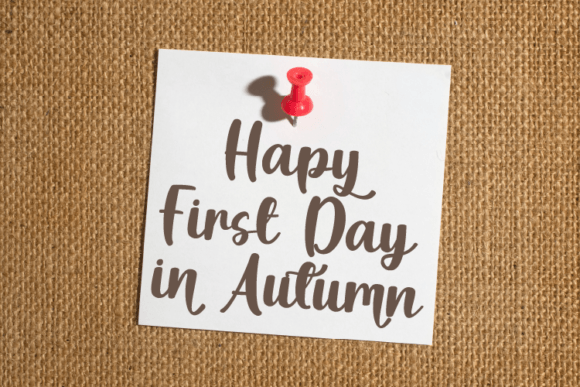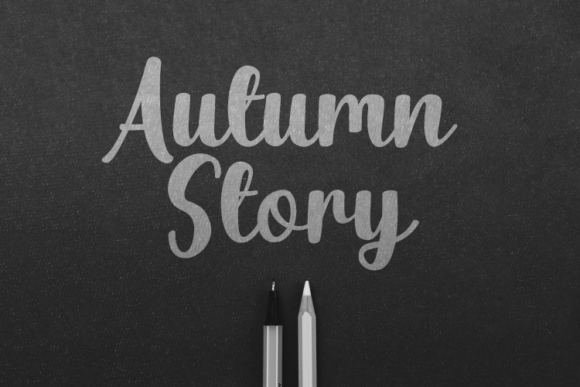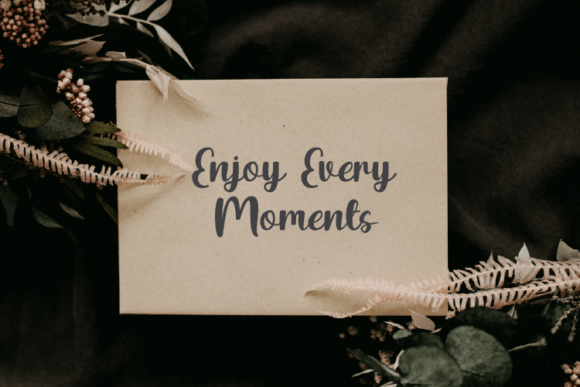
Introduction to Fresh Night Font
Fresh Night is a simple handwritten font that you can use for all chalkboard quotes or teaching materials.
Its authentic look will add a personal and realistic feel to your designs This font is PUA-encoded, which means you can access all of the glyphs and swashes with ease.
Why Choose Fresh Night Font?
Fresh Night Font offers exceptional quality and versatility, making it a valuable addition to your design toolkit. Whether you’re creating for personal projects or commercial use, Fresh Night Font delivers professional results.